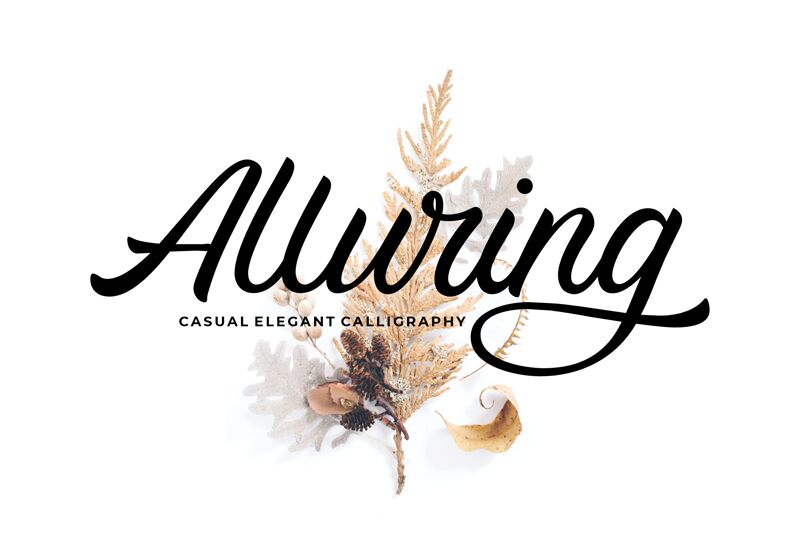
Alluring Regular
Alluring font by 50Fox Studio is a casual & elegant calligraphy typeface that makes handwriting appear effortless. The lightweight font features ligatures, alternates characters, a range of punctuation and numerals, plus accents and multilingual support through the use of foreign language characters.
Alluring Fonts was designed to emulate a real hand-written look. Its great for using in headlines because of its simple form and uncomplicated structure.
Alluring Fonts is perfect for branding projects, logo, wedding designs, social media posts, advertisements, product packaging, product designs, label, photography, watermark, invitation, stationery and any projects that need handwriting taste.